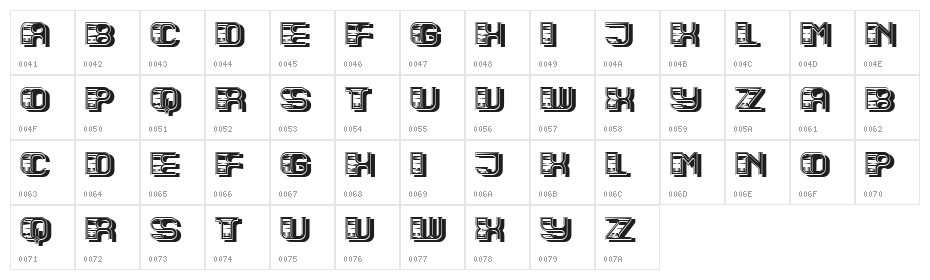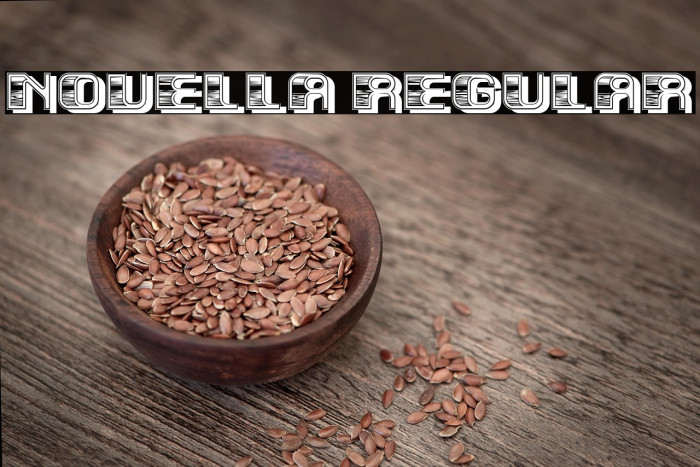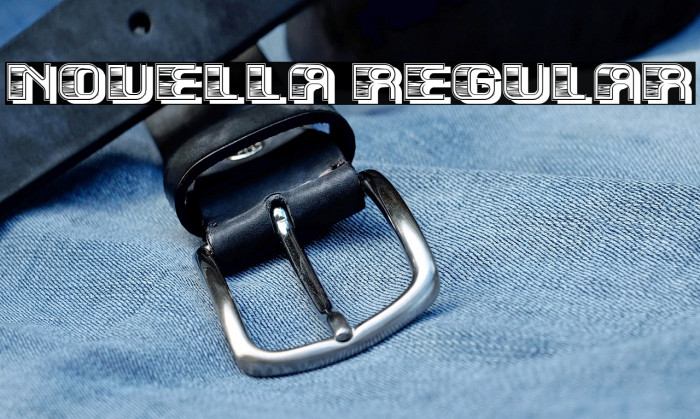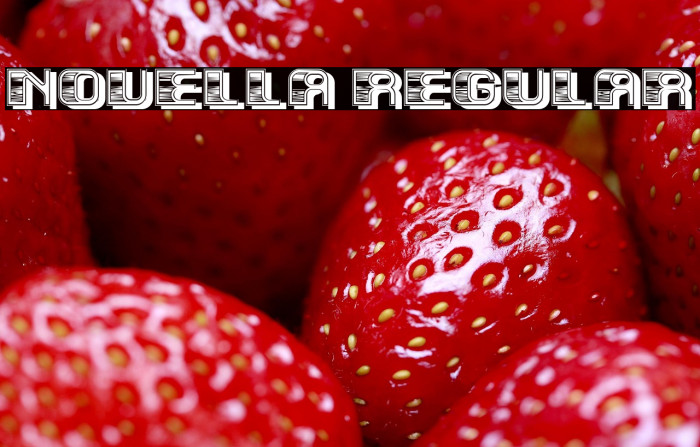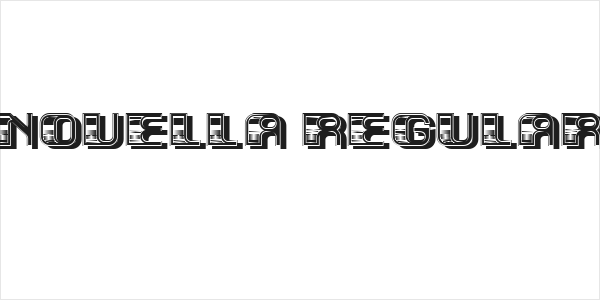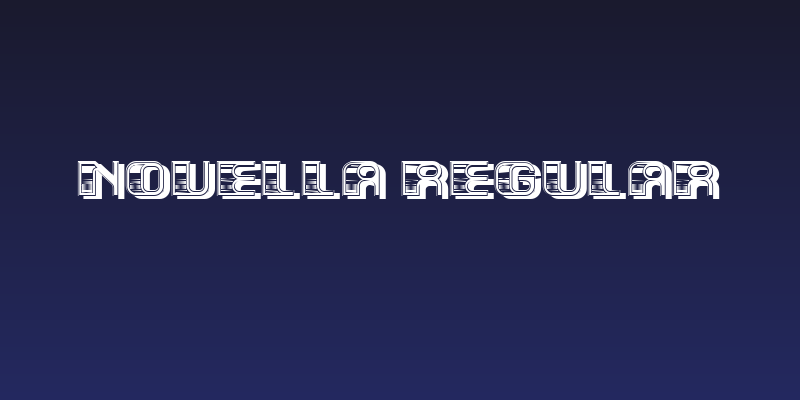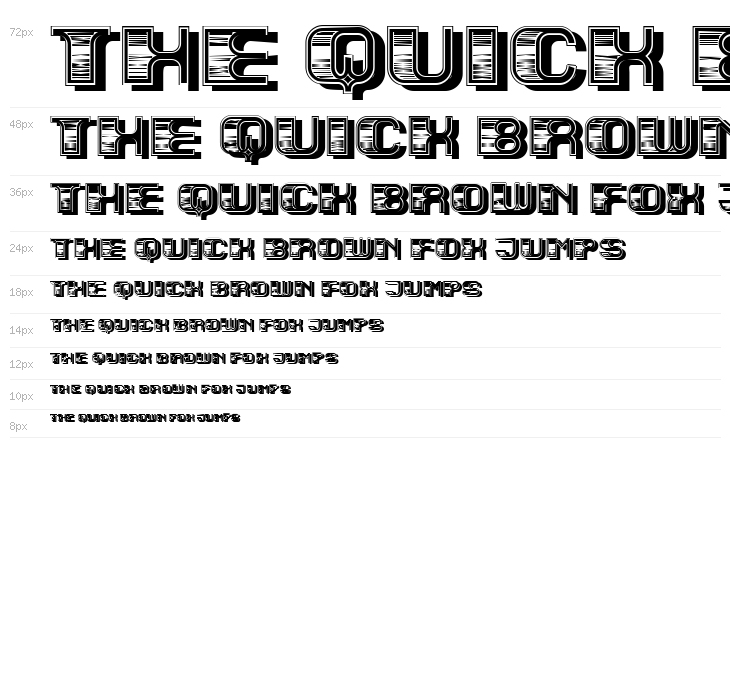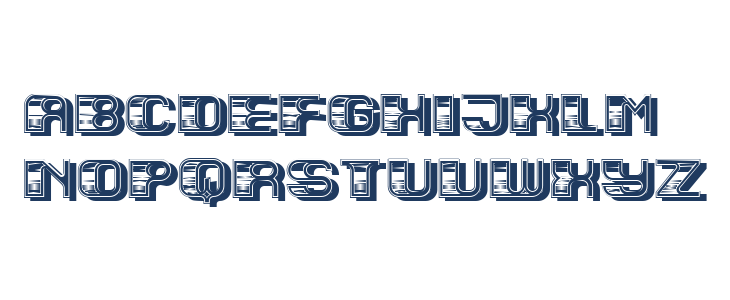
Novella Regular Font
Novella Regular Description
This font features a bold, decorative style with a unique striped pattern within each character. The uppercase letters are designed with a strong geometric structure, giving them a modern and eye-catching appearance. The font's intricate detailing and high contrast between the thick and thin lines make it stand out, ideal for creating impactful visual statements. The design is consistent across all characters, maintaining a cohesive look that is both artistic and functional. Its boldness and decorative elements suggest a use in projects that require a strong visual presence.
| Proposed Projects | Ideal for posters, logos, headlines, and branding materials that require a strong visual impact. |